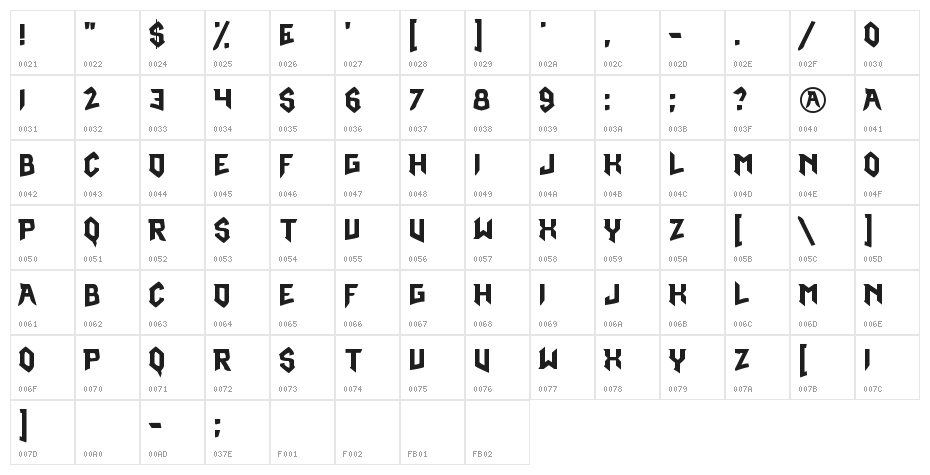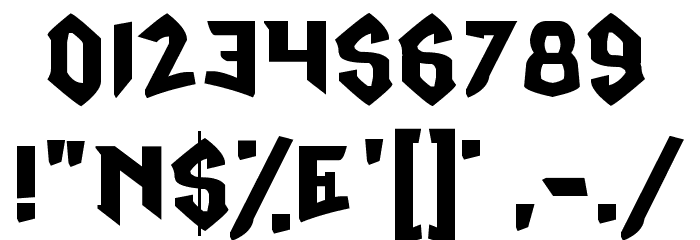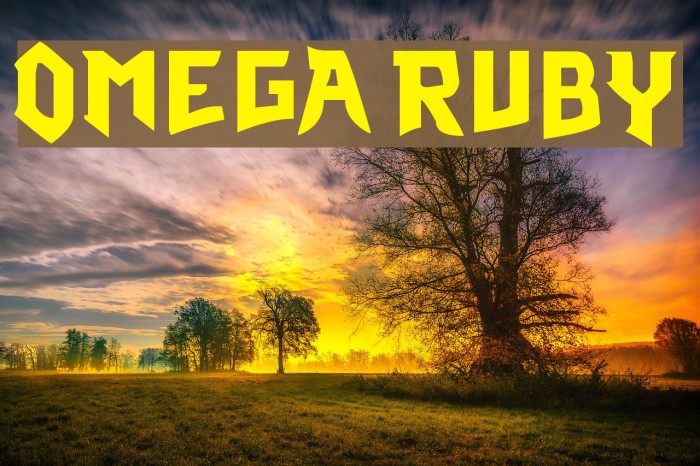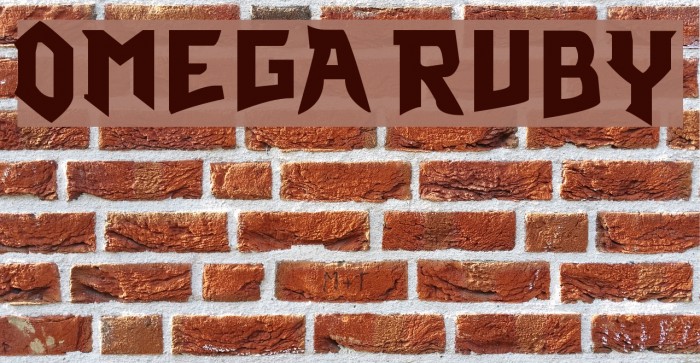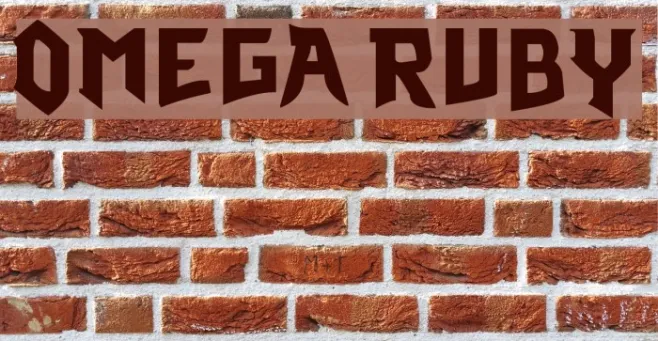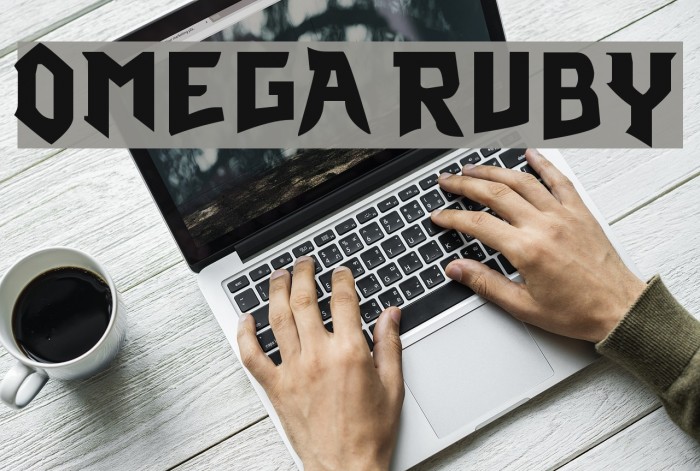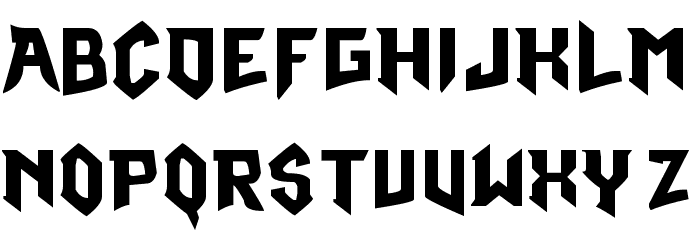
Omega Ruby Font
Omega Ruby Description
This font features a bold, angular design with sharp edges and a distinct geometric style. The uppercase and lowercase letters maintain a consistent weight, giving the font a strong and impactful presence. The numbers and special characters follow the same angular theme, ensuring uniformity across all glyphs. The font's unique style is reminiscent of a modern, futuristic aesthetic, making it suitable for projects that require a bold and striking visual impact. Its high contrast and distinct character shapes make it easily readable while maintaining a decorative flair.
| Proposed Projects | Ideal for branding, posters, video game titles, and any project needing a futuristic or edgy look. |